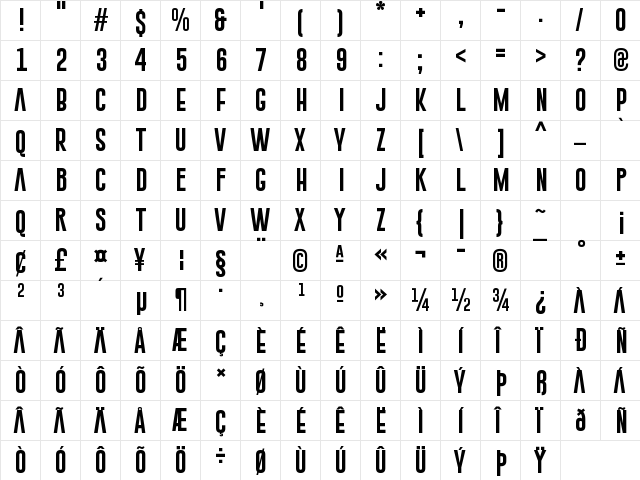
Gobold Extra1 Regular
| Designer | Situjuh Nazara |
Design Context for Gobold Extra1 Typeface
Gobold Extra1 offers clean, dependable letterforms without strong stylistic allegiance, making it a practical choice for designers who need flexibility. Its bold stroke weight gives it real presence on the page.